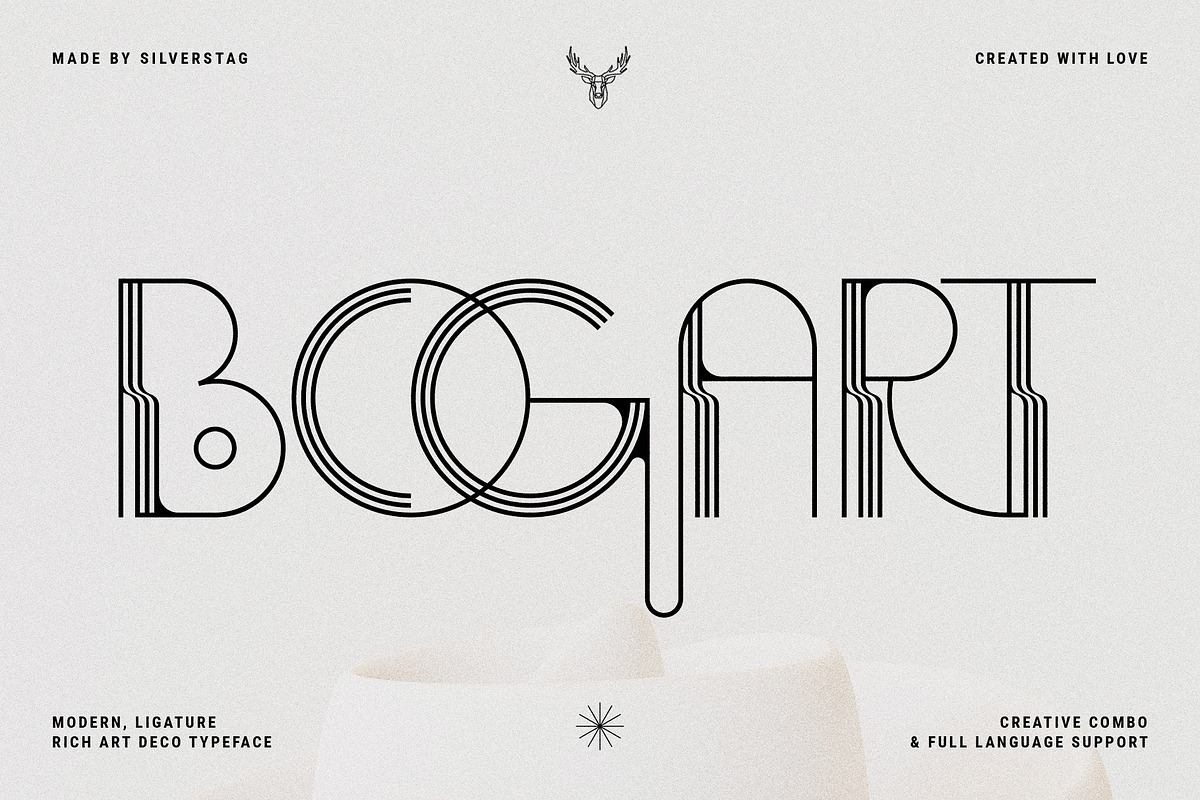
BOGART Deco – Ligature Rich Typeface Free Download is a geometric and stylish Art Deco-inspired font designed to bring elegance and sophistication to your design projects. Created by SilverStag, this typeface features over 270 alternate letters and ligatures, allowing for unique and creative typography.
BOGART Deco includes full language support, punctuation, numerals, and detailed instructions on how to use alternate letters in various applications, including Canva. The font family comprises eight styles, including italics and outlines, providing versatility for a range of design needs.